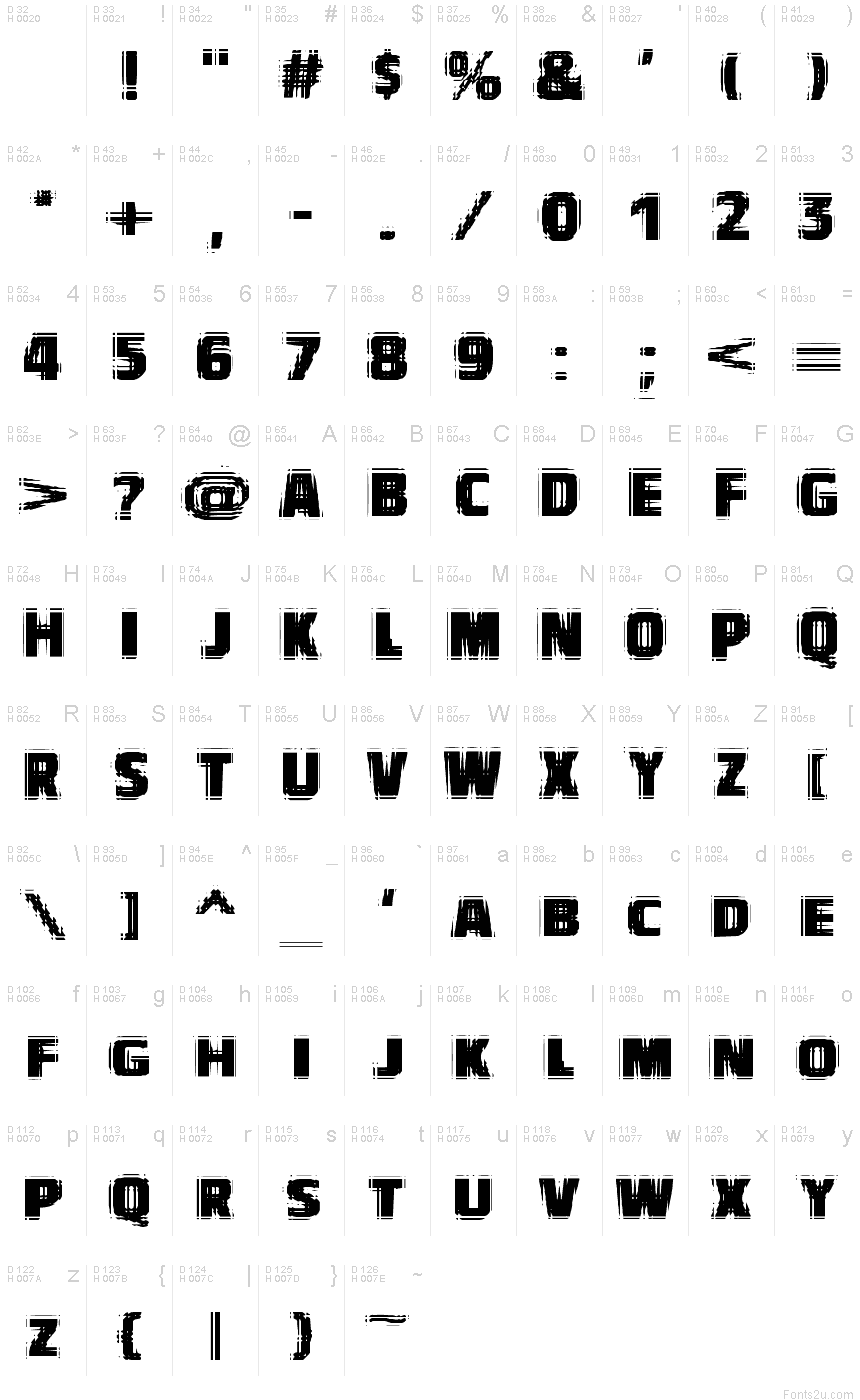
VTC Bad Vision, designed by Larry E. Yerkes for Vigilante Typeface Corporation, is a free distressed display font built from massive, tightly packed capitals with uneven edges and broken internal shapes. Deep cuts and rough gaps fracture the broad letterforms.
Posters are its strongest setting, especially for horror films and underground music events, since the dense silhouettes resemble battered signage or hastily cut industrial stencils rather than conventional printed type. That recurring slash-and-chip texture also suits game covers, streetwear merchandise, and extreme-sports branding, where the lettering can become part of the damage motif and connect directly with torn graphics or abrasive poster illustration.